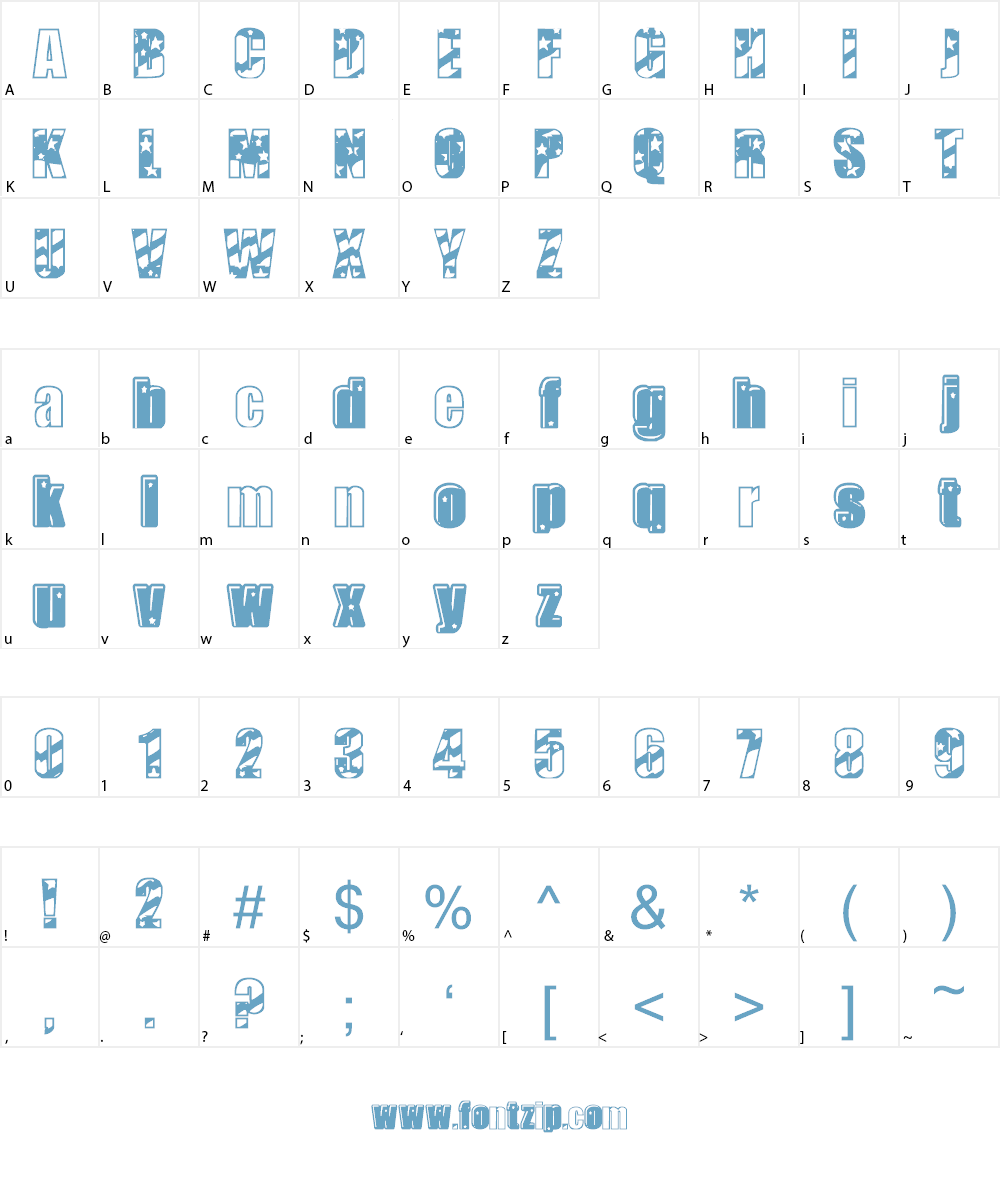
Created in honor of those lost in the attacks September 11, 2001.God bless America. This is freeware buit a donation to the Red Cross or similar relief organization is appreciated. For more info check out